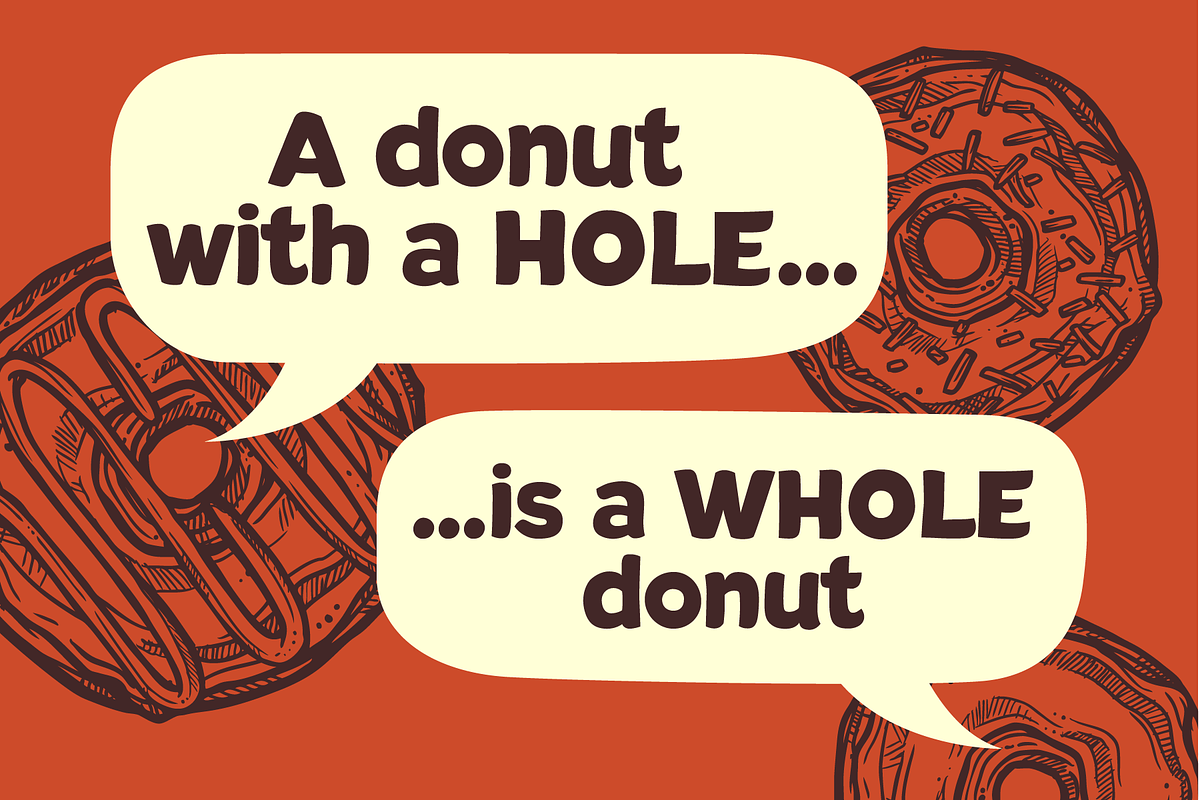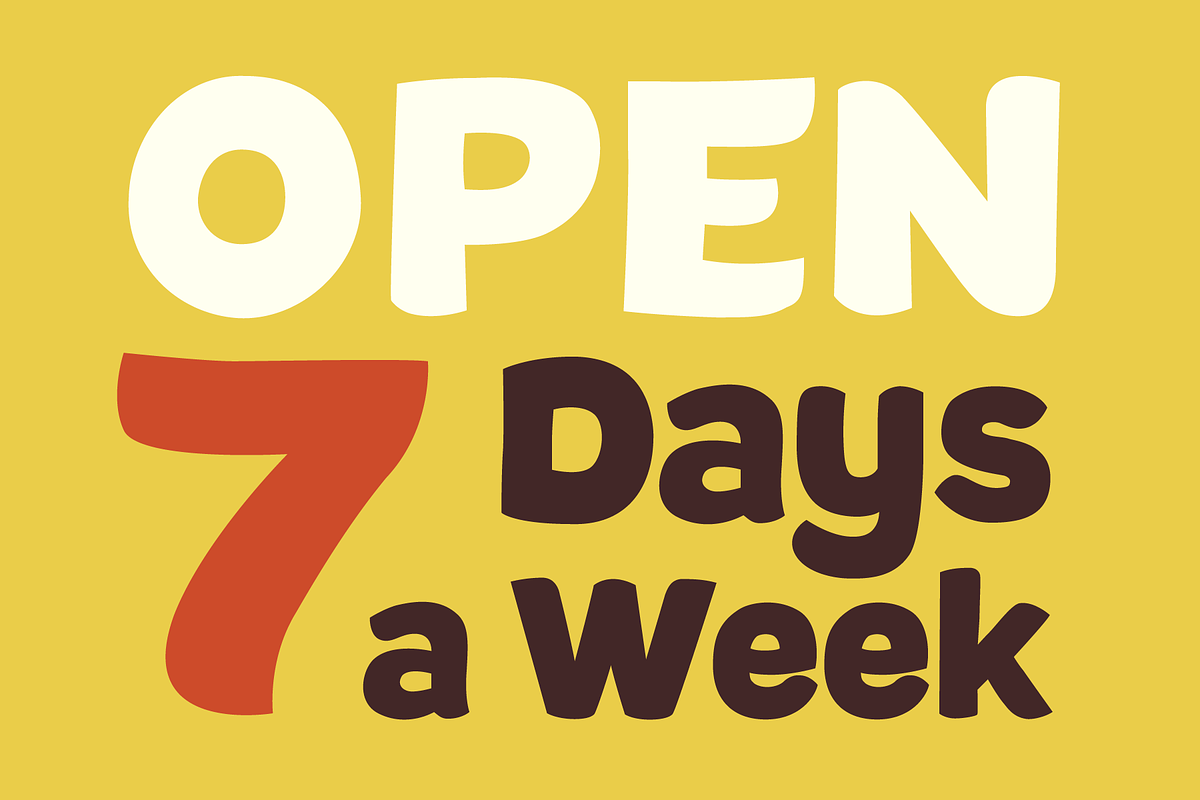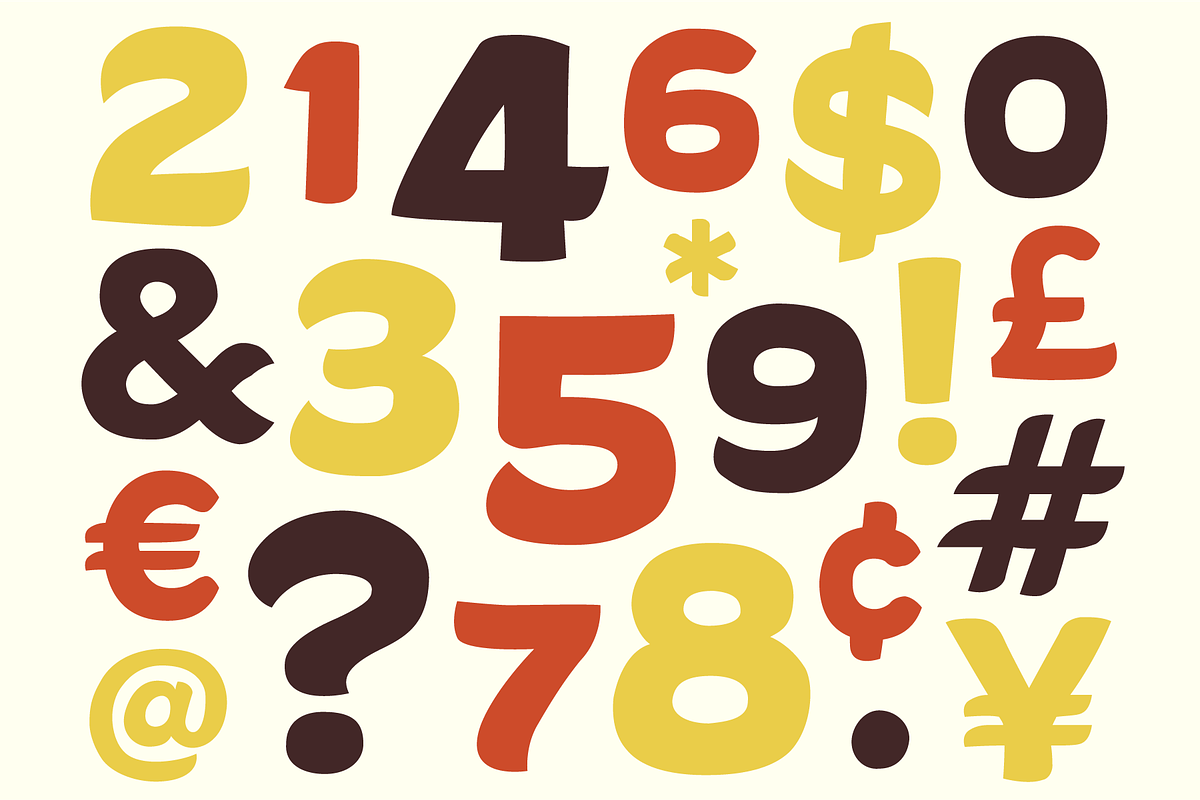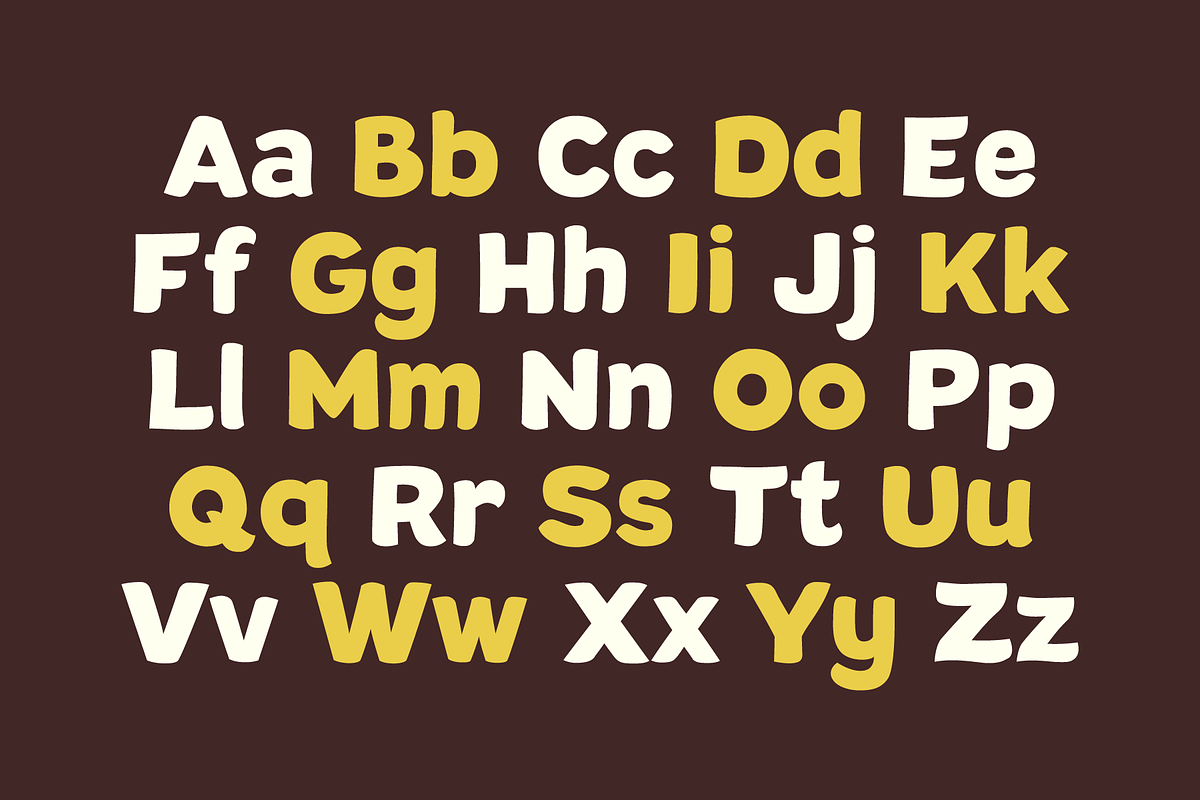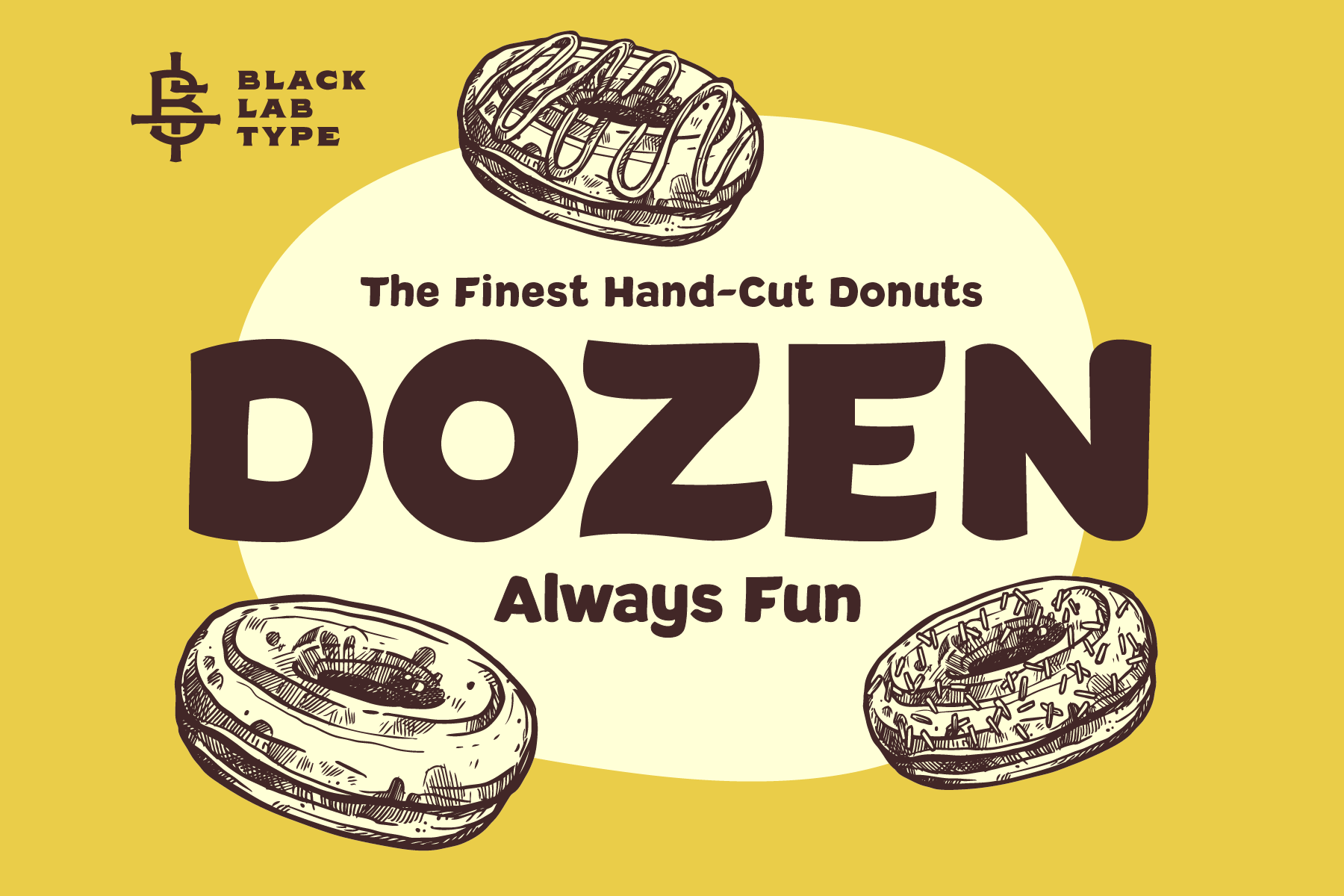
Dozen : Fun Loving Display Font
Dozen is a fun-loving font with tons of character that harkens back to the glory days of 60's diners and donut bakeries. Its round and HOLE-some personality is sure bring life to any project. Pairs well with a good cup of coffee!